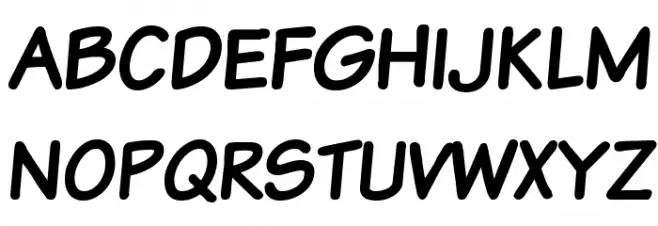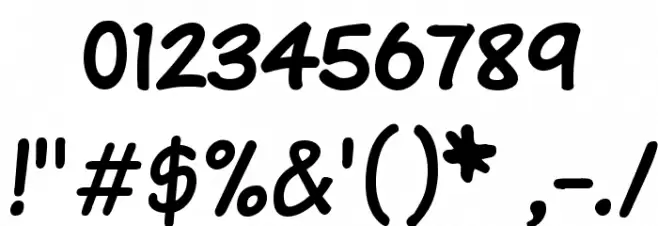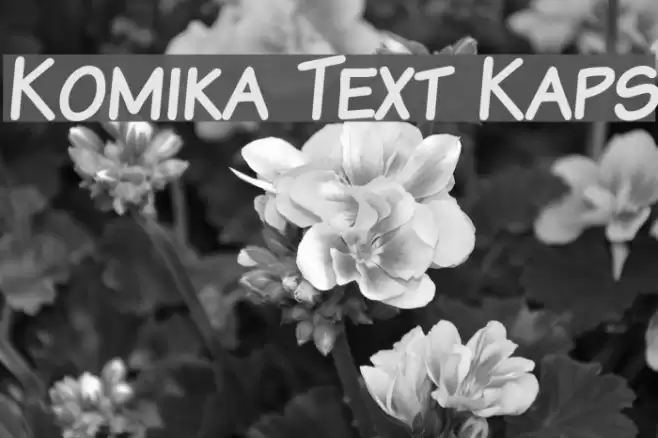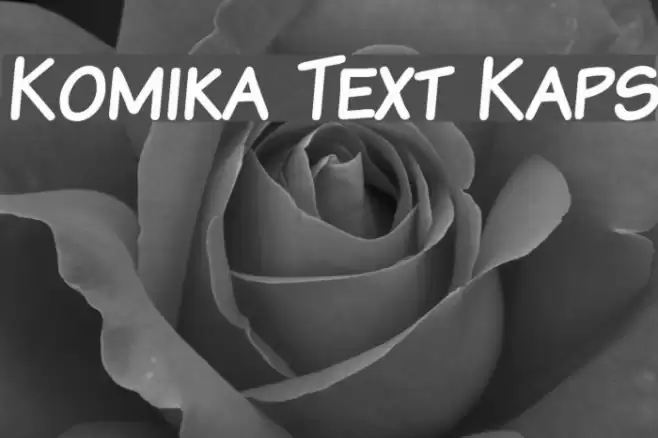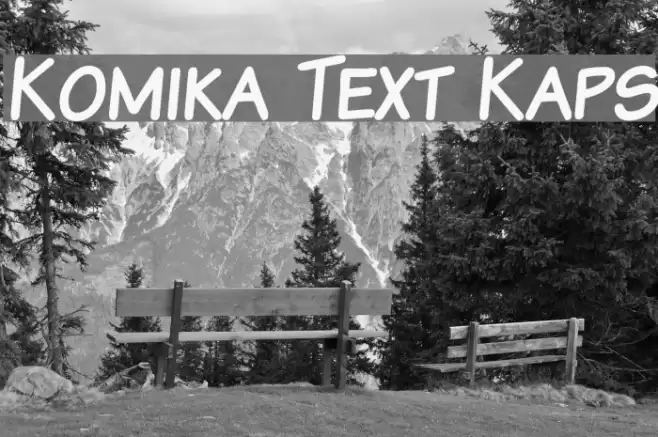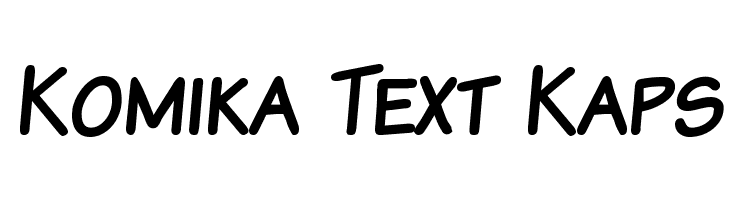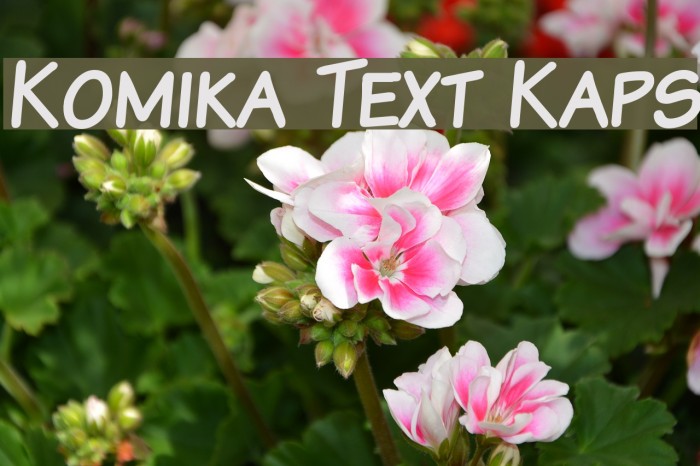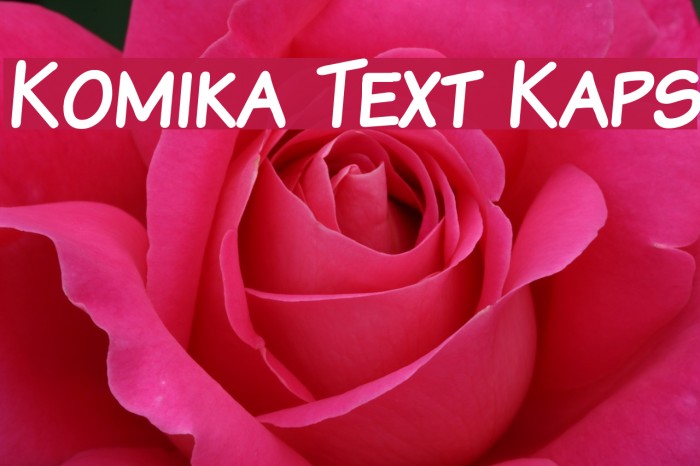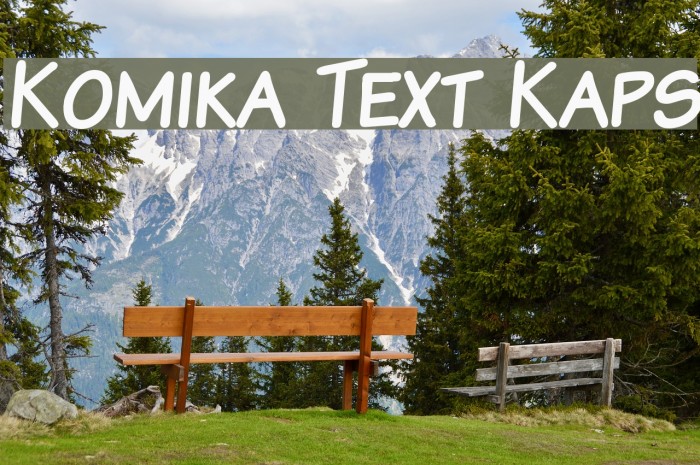
Komika Text Kaps
This playful and bold font features a handwritten style with rounded edges, giving it a friendly and approachable appearance. The characters are slightly slanted, adding a dynamic and energetic feel. The uppercase and lowercase letters maintain a consistent style, with a smooth flow between strokes. The numbers and special characters are designed to match the overall aesthetic, ensuring a cohesive look across all elements. This font is perfect for projects that require a fun and informal touch, such as children's books, comic strips, or playful branding.
A playful, bold handwritten font with rounded edges and a dynamic slant.
- Proposed Projects: Ideal for children's books, comic strips, playful branding, and informal designs.
- Overall Style: Playful
- Use Case: Headlines, Logos, Informal Text